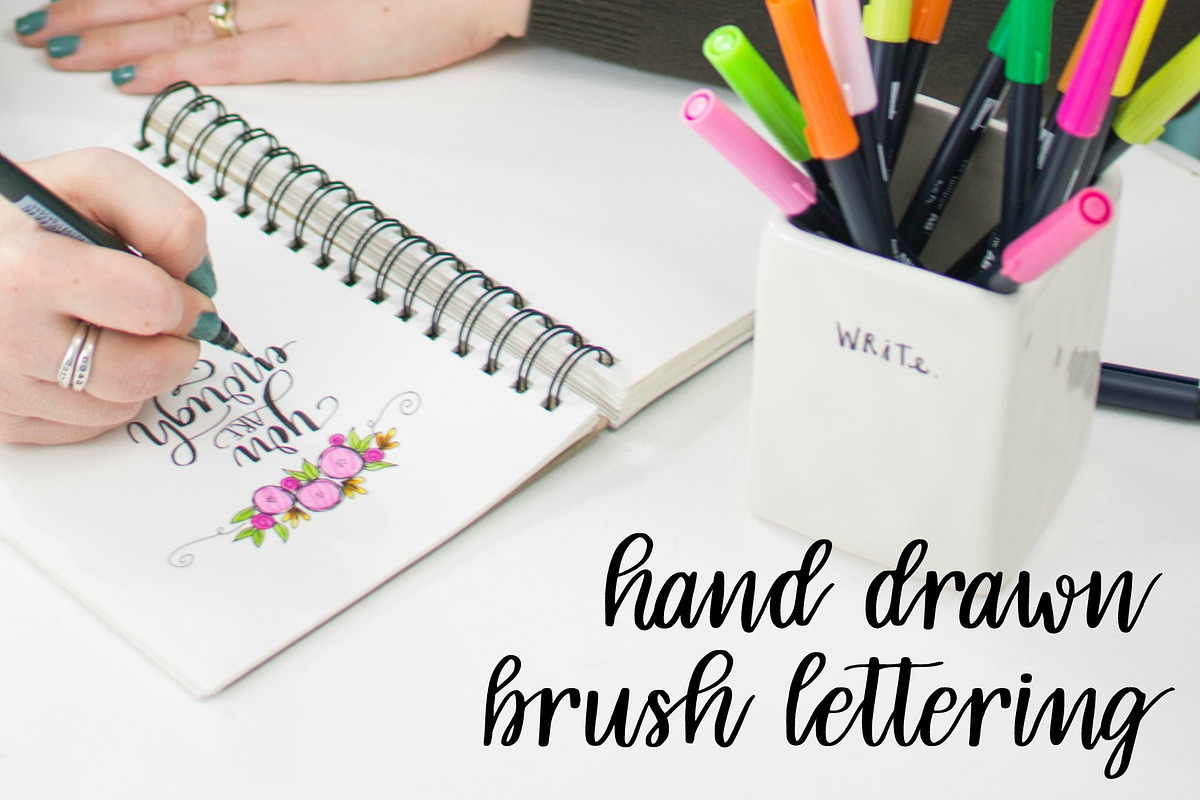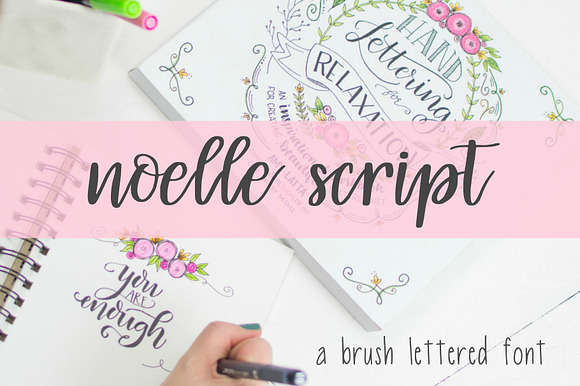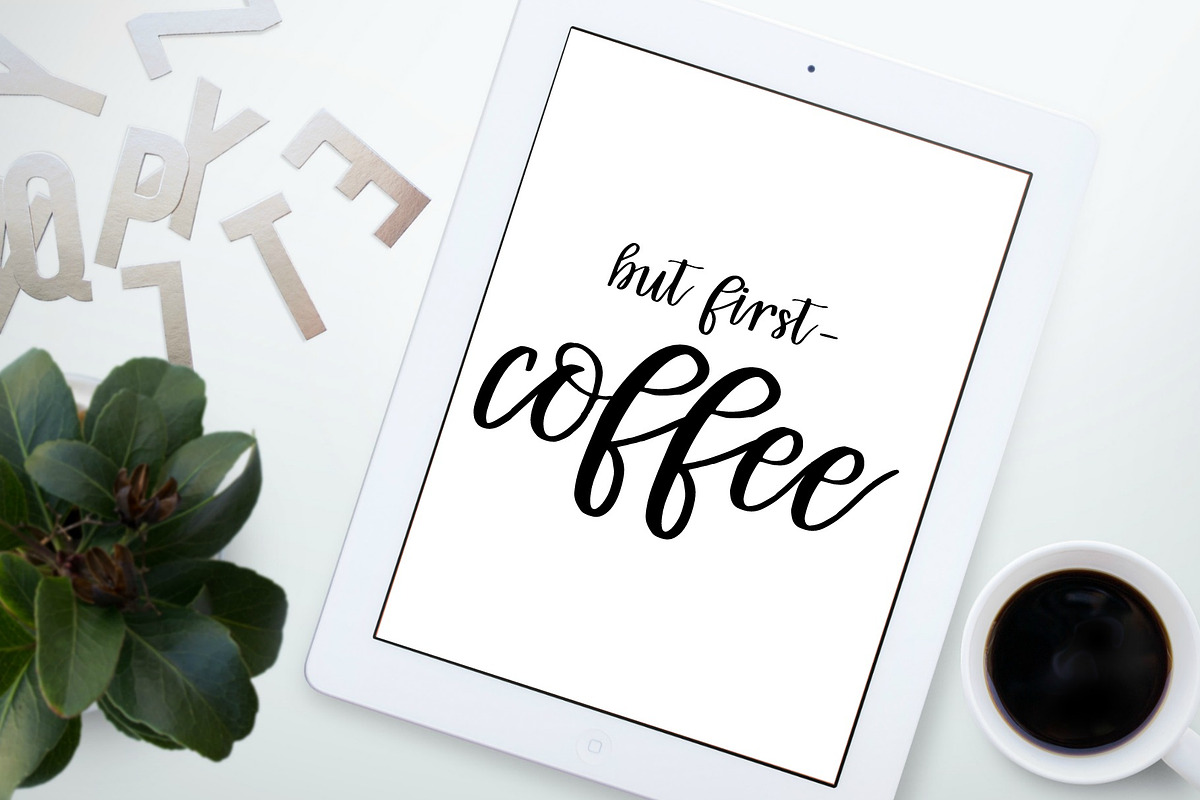
Noelle Script Brush Lettered Font
Give your projects an authentic hand lettered feel with Noelle Script, an elegant brush lettered font. Hand drawn by artist Amy Latta, author of Hand Lettering for Relaxation {2017} and Express Yourself {2018}.
Noelle Script Brush Lettered Font by Amy Latta Creations fits naturally into Branding, posters, packaging, typography.